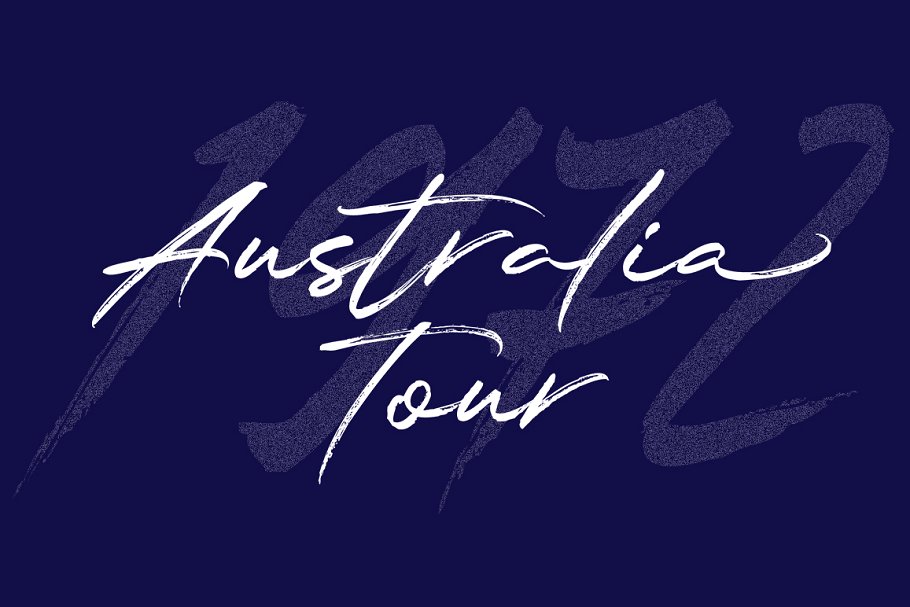
Fragile Script Font
Fragile Script is textured brush font, contemporary approach to design, handmade natural with an irregular baseline, also equipped with alternatives and ligatures. Suitable for use in title design. Such as apparel, invitations, books tittle, stationery design, quotes, branding, logos, greeting card, t-shirt, packaging design, poster and more. Fragile Script includes a complete set of uppercase and lowercase letters, as well as multi-language support, numbers, punctuation.